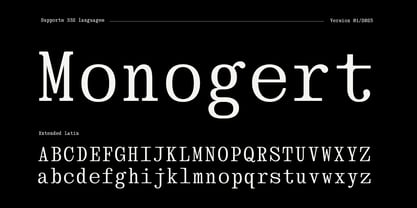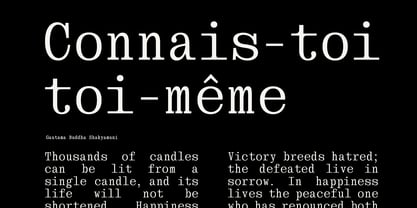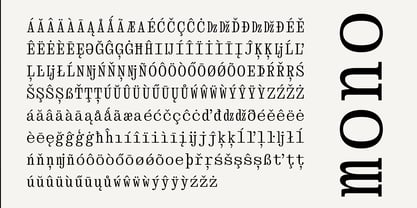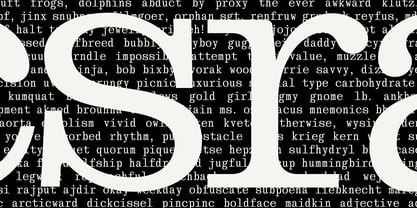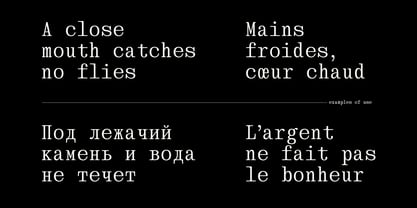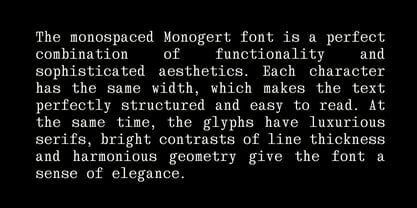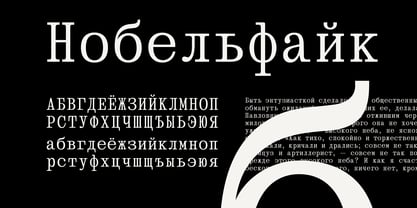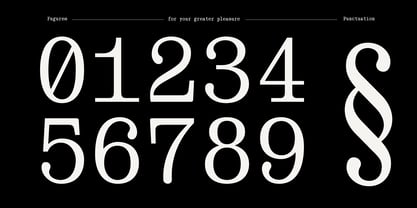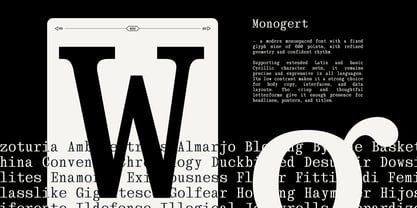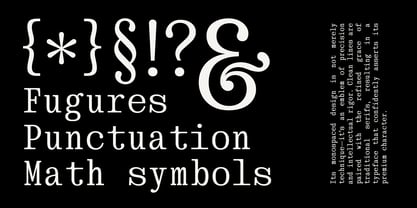
Monogert
by Oleg Gert
The Monogert Font Family was designed by Oleg Gert and published by Oleg Gert. Monogert contains 6 styles and family package options.
The monospaced Monogert font is a perfect combination of functionality and sophisticated aesthetics. Each character has the same width, which makes the text perfectly structured and easy to read. At the same time, the glyphs have luxurious serifs, bright contrasts of line thickness and harmonious geometry give the font a sense of elegance.